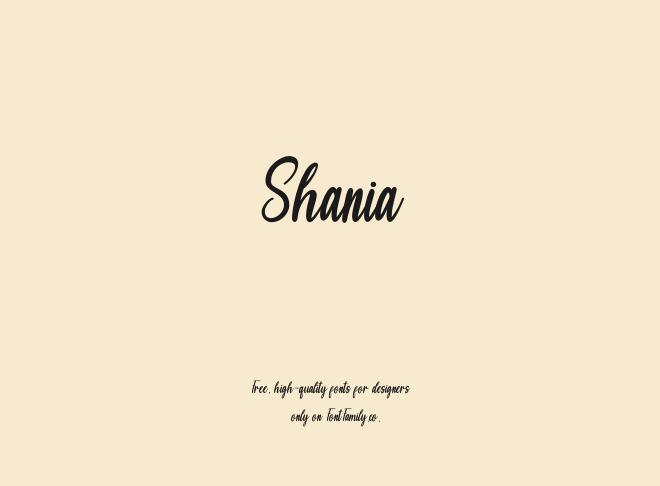
Shania Font
The Shania Font is a playful, decorative script typeface with a touch of handwritten charm. Its playful curves and unique style make it a standout choice for various design projects. Best suited for invitations, greeting cards, branding materials, business cards, quotes, posters, and more, Shania Font adds an element of joy and creativity to any design. It is easily comparable to fonts like Brush Script, but with its own unique flair. The font is free for personal use and its versatility makes it a great choice for both amateur and professional designers looking to add a touch of personalization to their projects. With its distinctive style, Shania Font is sure to make your designs pop and leave a lasting impression.